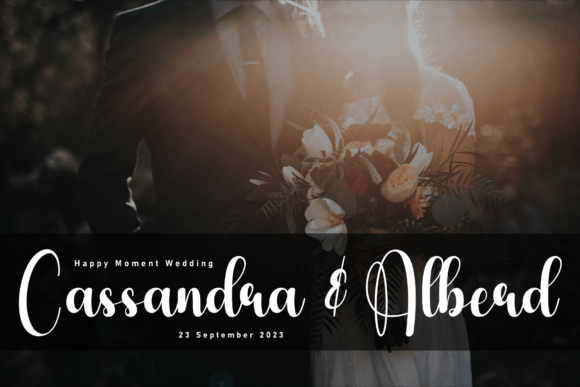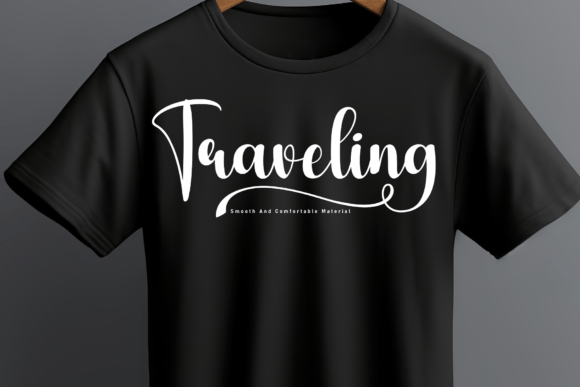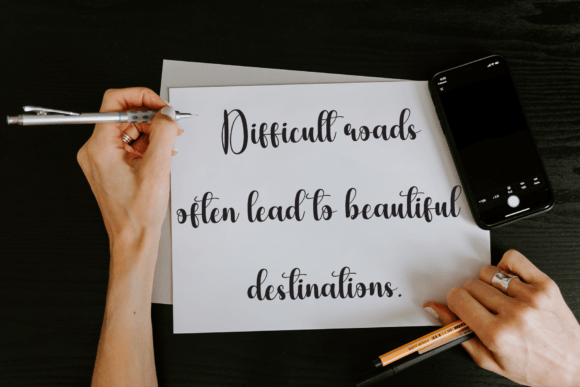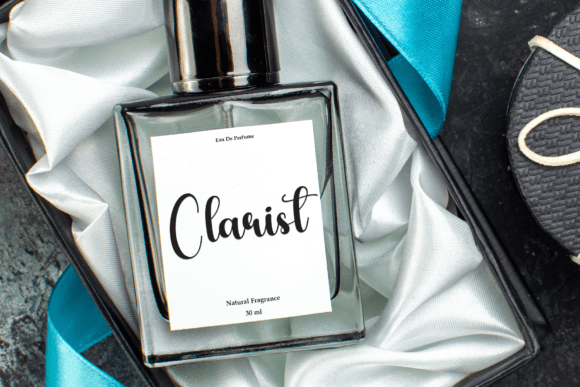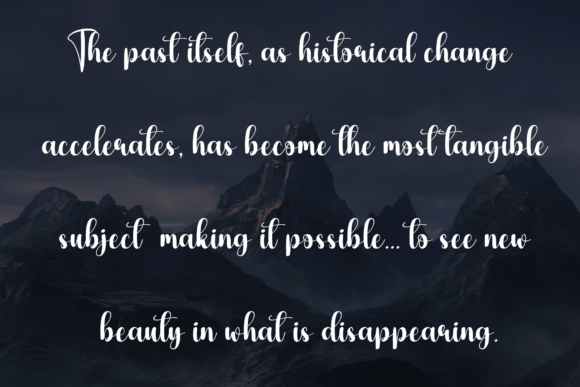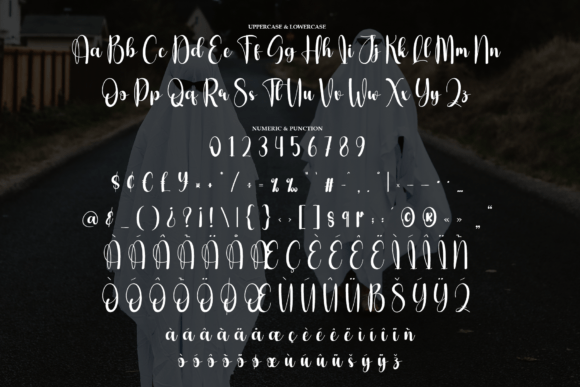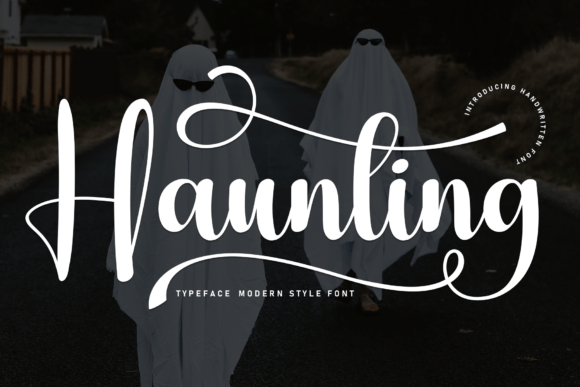
Discover the Charm of Haunting Font: A Clean, Relaxed, and Friendly Handwritten Font
Are you tired of using the same old fonts in your designs? Look no further! Haunting Font is here to breathe new life into your creative projects. This beautiful, handwritten font is clean, relaxed, and friendly, making it perfect for a wide range of designs. In this article, we’ll dive into the world of Haunting Font and explore its features, benefits, and uses.
What is Haunting Font?
Haunting Font is a stunning, handwritten font that exudes a sense of simplicity and elegance. Its neat and straightforward style makes it an excellent choice for designers and crafters looking for a versatile font to add to their collection. Whether you’re working on a logo, branding project, social media graphics, or website design, Haunting Font is sure to impress.
Key Features of Haunting Font
- Clean and Simple Style: Haunting Font boasts a clean and simple design that makes it easy to read and versatile for various applications.
- Relaxed and Friendly Vibe: The font’s relaxed and friendly feel makes it perfect for designs that require a personal touch.
- Neat and Legible: Haunting Font is designed to be neat and legible, ensuring that your message is conveyed clearly and effectively.
- Wide Range of Uses: From logos and branding to social media graphics and website design, Haunting Font is suitable for a wide variety of projects.
Benefits of Using Haunting Font
So, why should you choose Haunting Font for your next project? Here are just a few benefits of using this amazing font:
- Stand Out from the Crowd: Haunting Font is a unique and distinctive font that will help your designs stand out from the crowd.
- Easy to Read: The font’s clean and simple design makes it easy to read, ensuring that your message is conveyed clearly.
- Versatile: Haunting Font is suitable for a wide range of projects, from formal to informal designs.
- Time-Saving: With Haunting Font, you can create professional-looking designs in no time, saving you time and effort.
Uses of Haunting Font
Haunting Font is an incredibly versatile font that can be used in a variety of projects, including:
- Logo Design: Create a stunning logo for your brand with Haunting Font.
- Branding: Use Haunting Font to create a consistent brand identity across all your marketing materials.
- Social Media Graphics: Add a personal touch to your social media graphics with Haunting Font.
- Website Design: Use Haunting Font to create a beautiful and user-friendly website.
- Stationery: Add a touch of elegance to your stationery with Haunting Font.
Tips for Using Haunting Font
Here are a few tips for using Haunting Font in your designs:
- Experiment with Font Sizes: Try out different font sizes to create visual interest and hierarchy in your designs.
- Pair with Other Fonts: Pair Haunting Font with other fonts to create a unique and eye-catching combination.
- Use in Combination with Images: Use Haunting Font in combination with images to create stunning graphics.
In conclusion, Haunting Font is a beautiful, clean, relaxed, and friendly handwritten font that is perfect for a wide range of designs. Its neat and simple style makes it easy to read and versatile for various applications. With its numerous benefits and uses, Haunting Font is sure to become your go-to font for all your design needs. So why wait? Give Haunting Font a try today and take your designs to the next level!